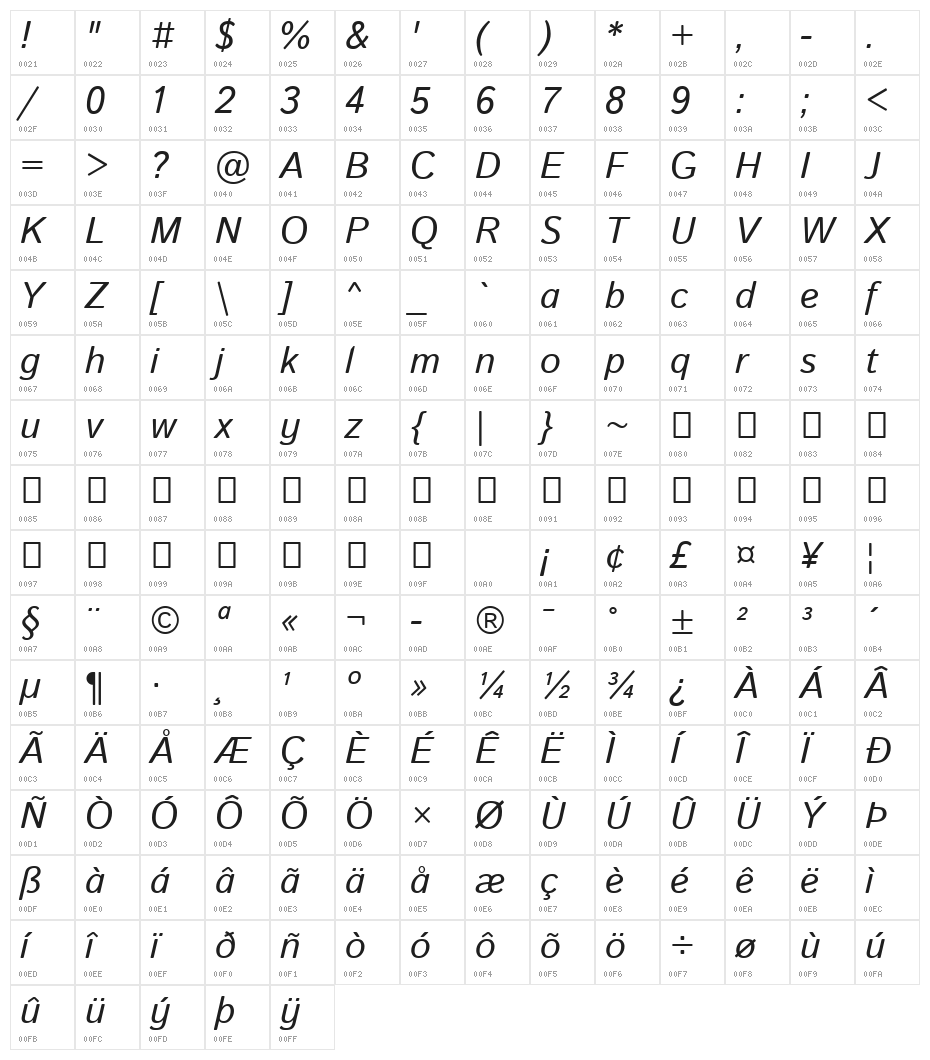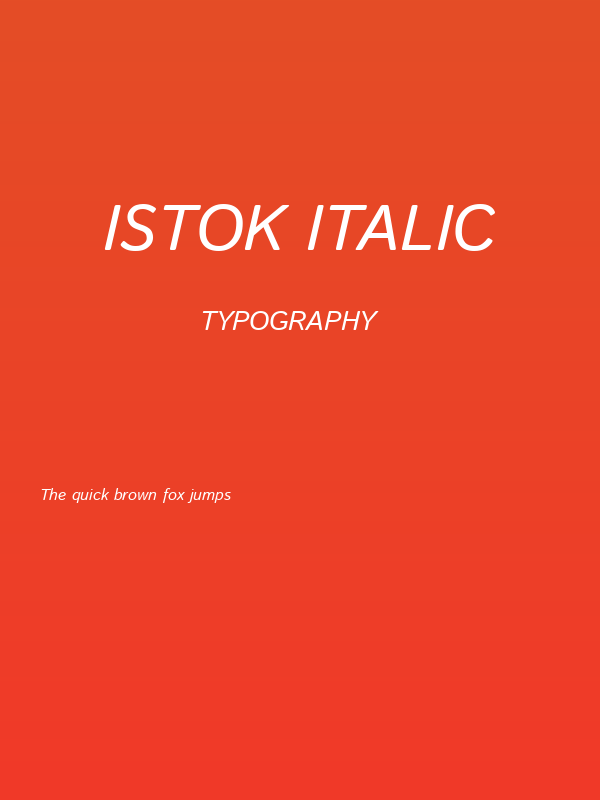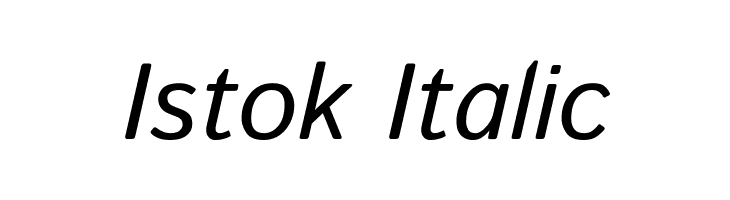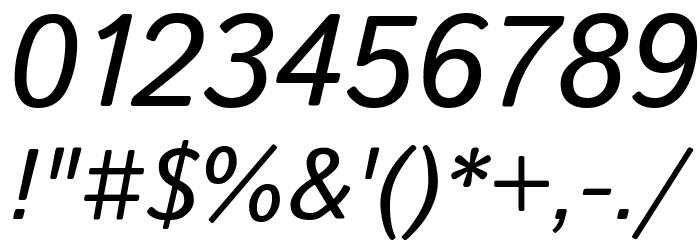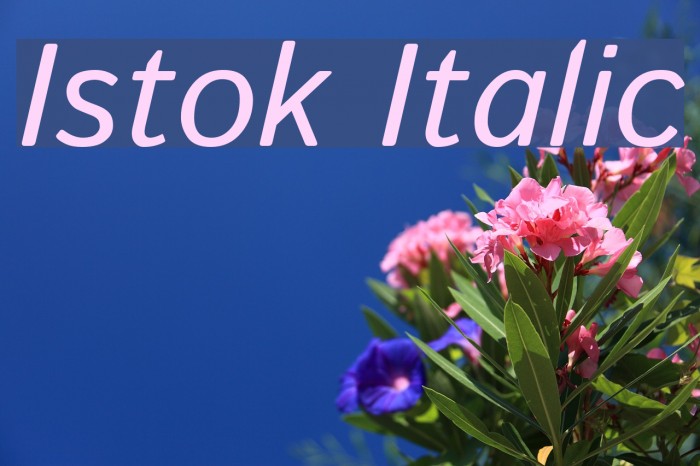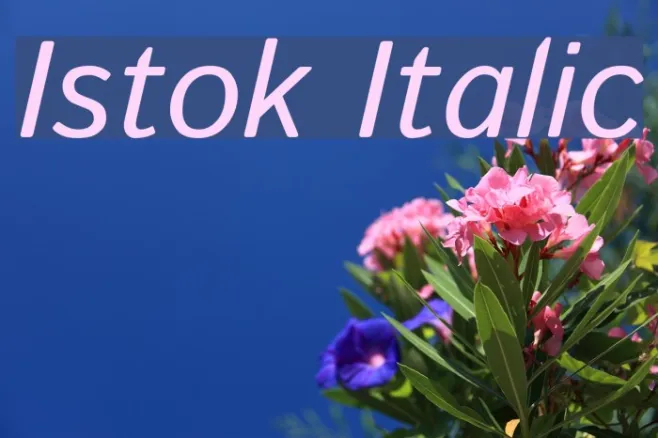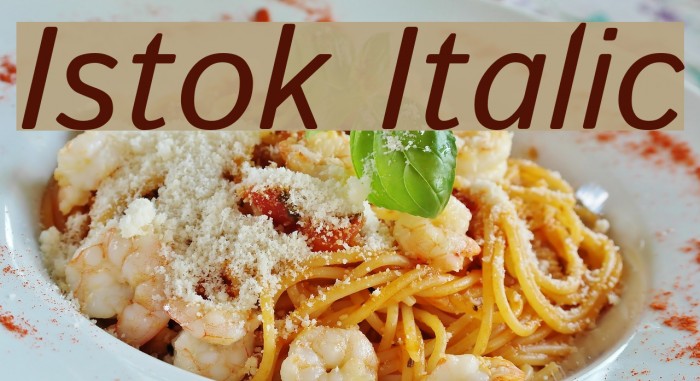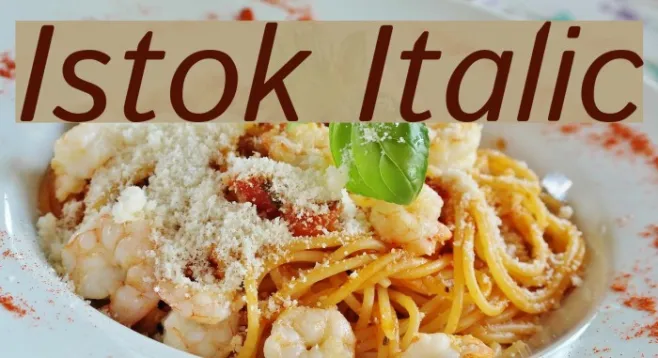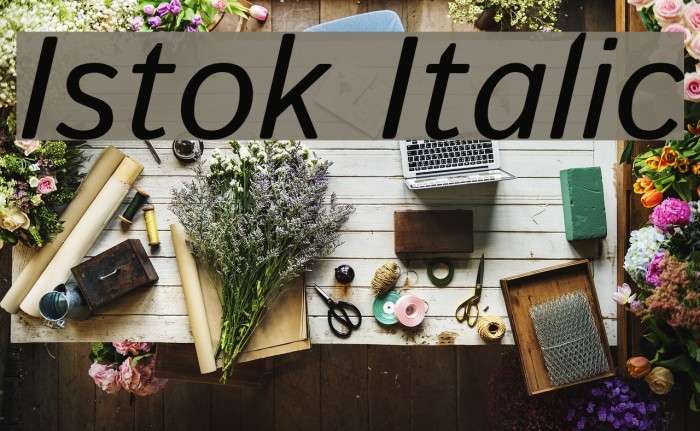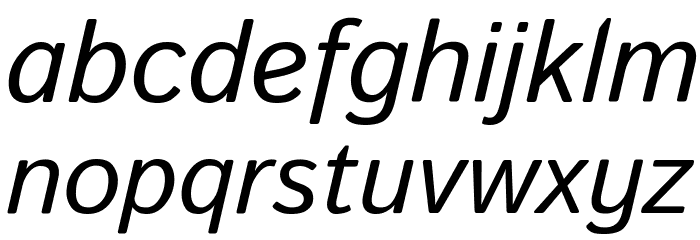
Istok Italic Font
Istok Italic Description
This font features a clean and modern sans-serif design with a slight italic slant, giving it a dynamic and elegant appearance. The characters are well-proportioned, with smooth curves and a consistent stroke width that enhances readability. The uppercase letters are bold and assertive, while the lowercase letters maintain a friendly and approachable feel. The numerals are clear and distinct, making them suitable for a variety of contexts. Special characters are well-integrated, ensuring versatility in usage. The overall design is sleek and professional, making it ideal for both digital and print media.
| Use Case | Headlines, Body text, Logos |
| Proposed Projects | Ideal for branding, editorial design, web design, and advertising materials. |